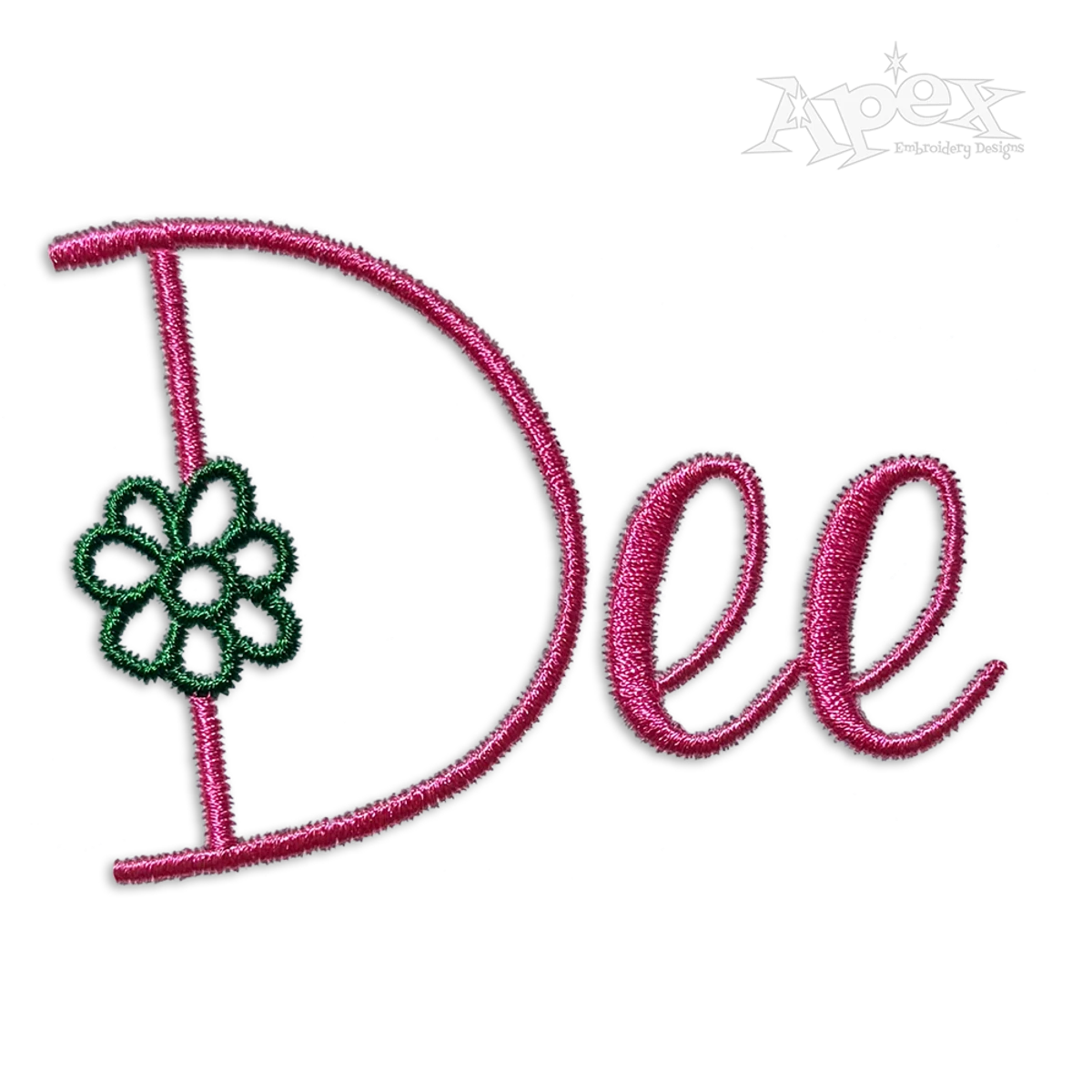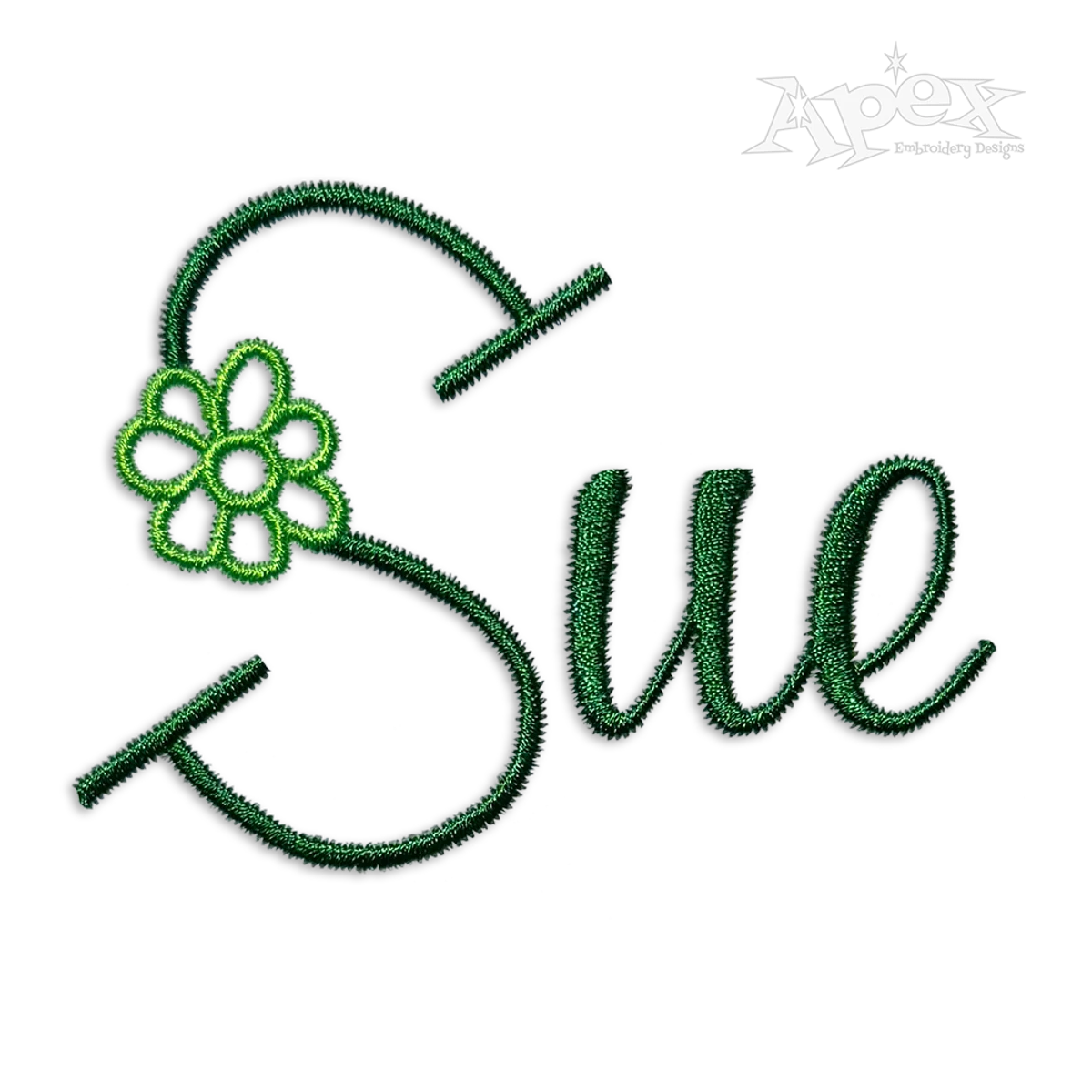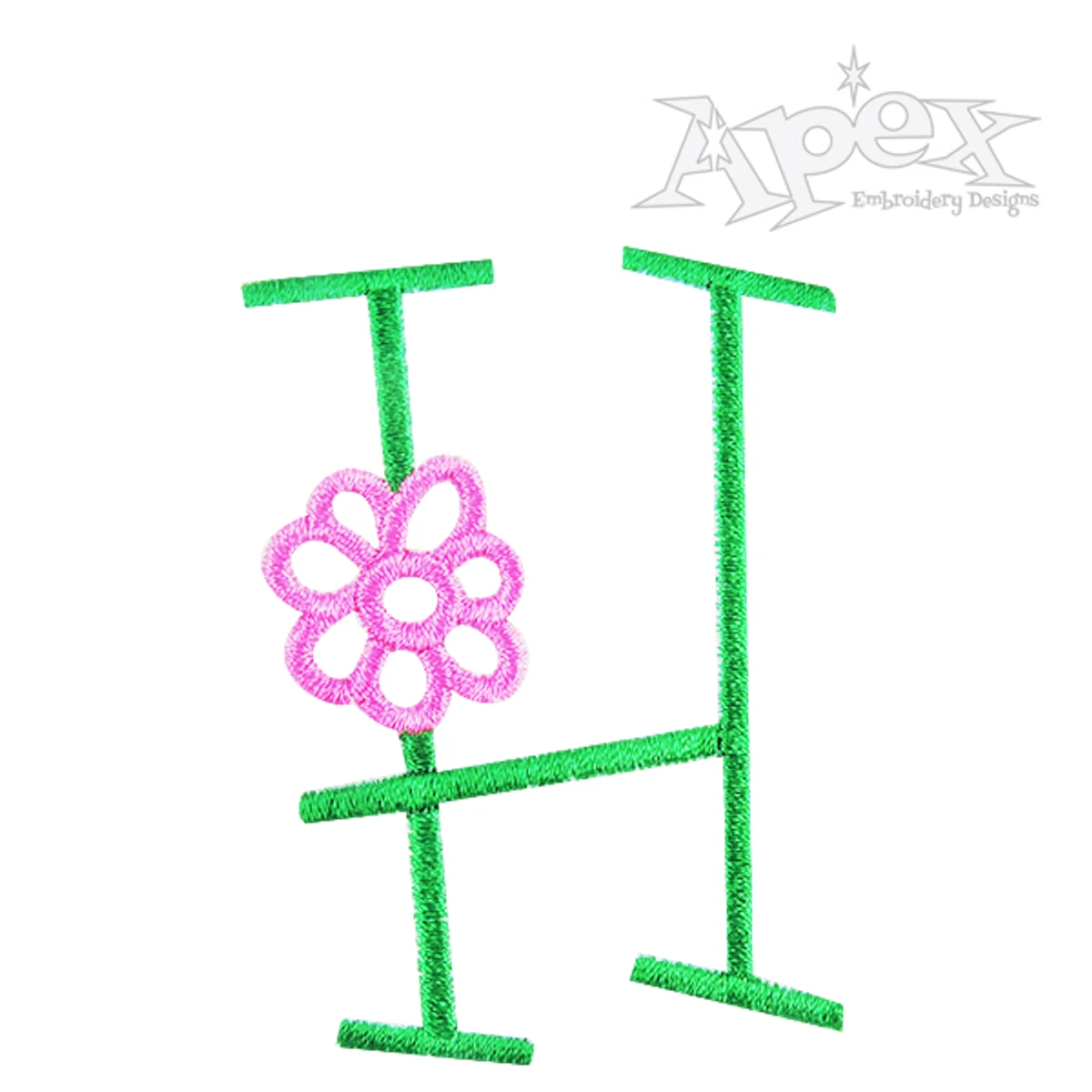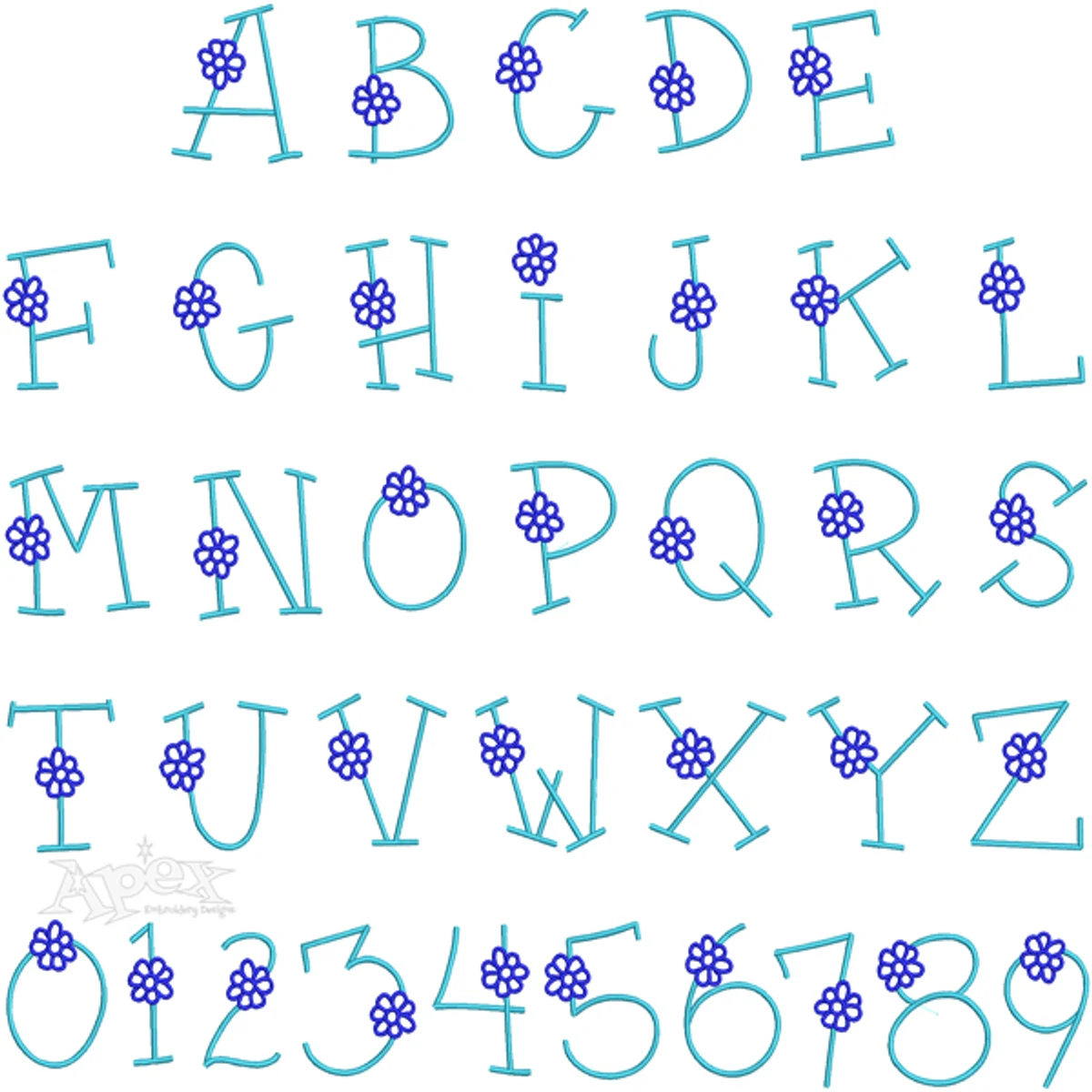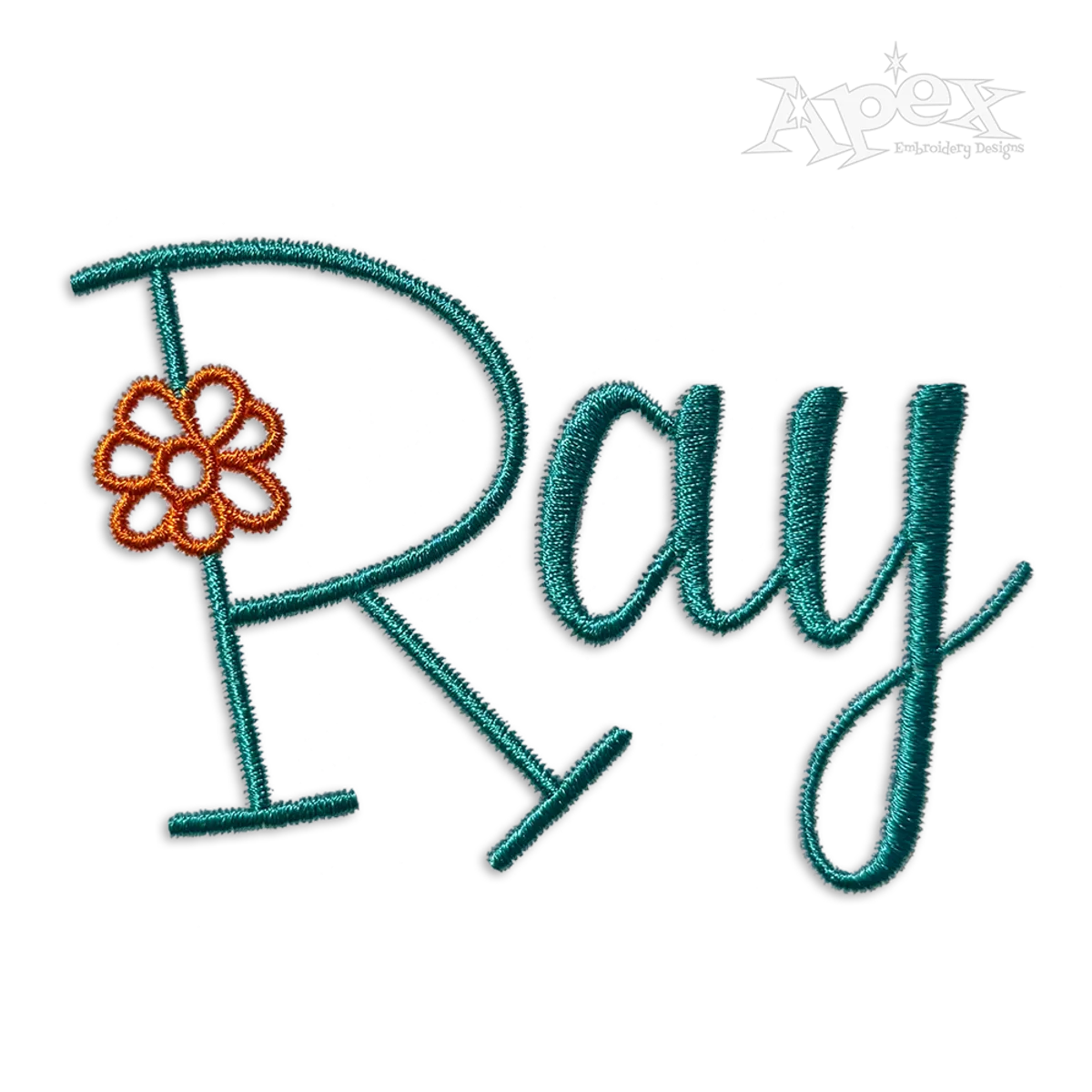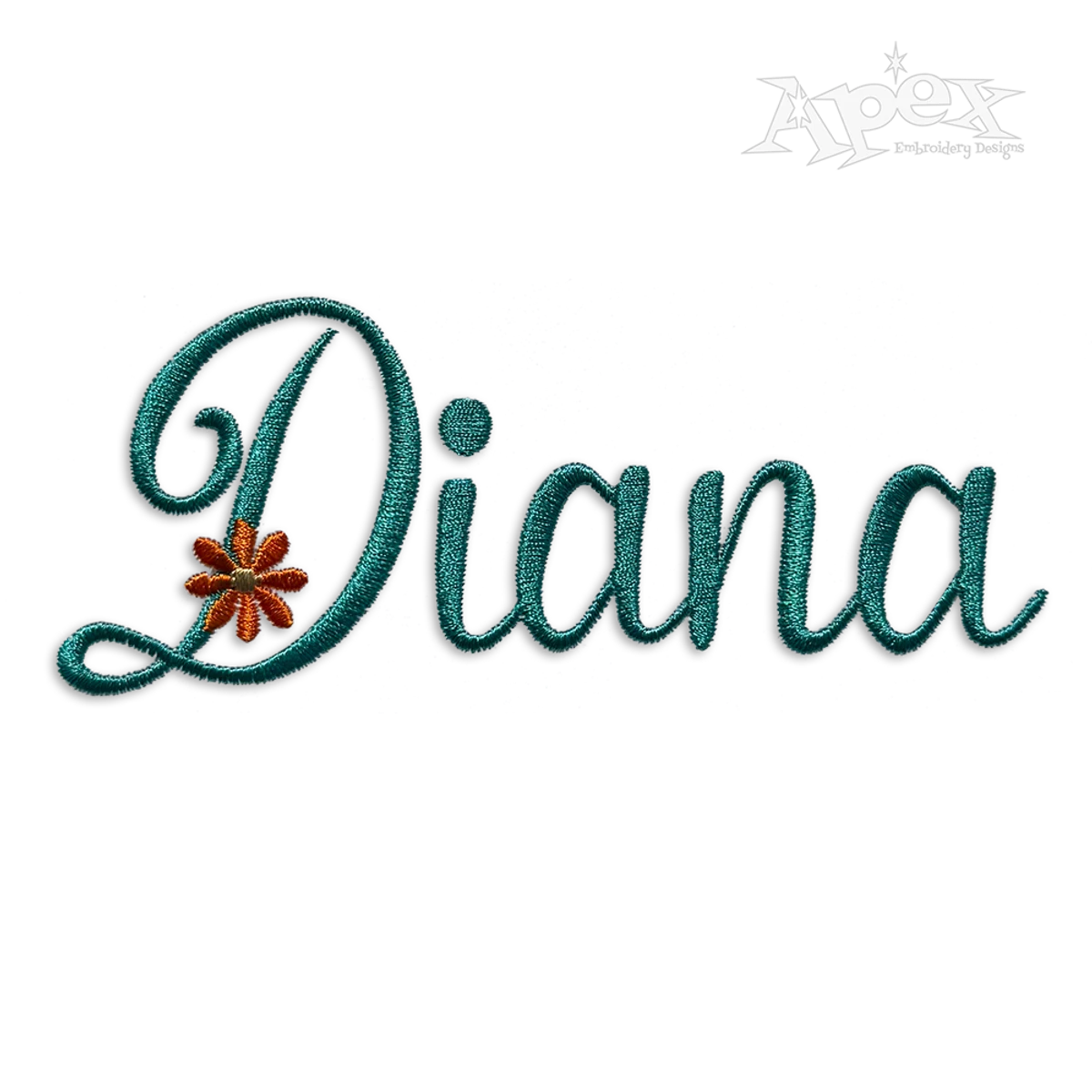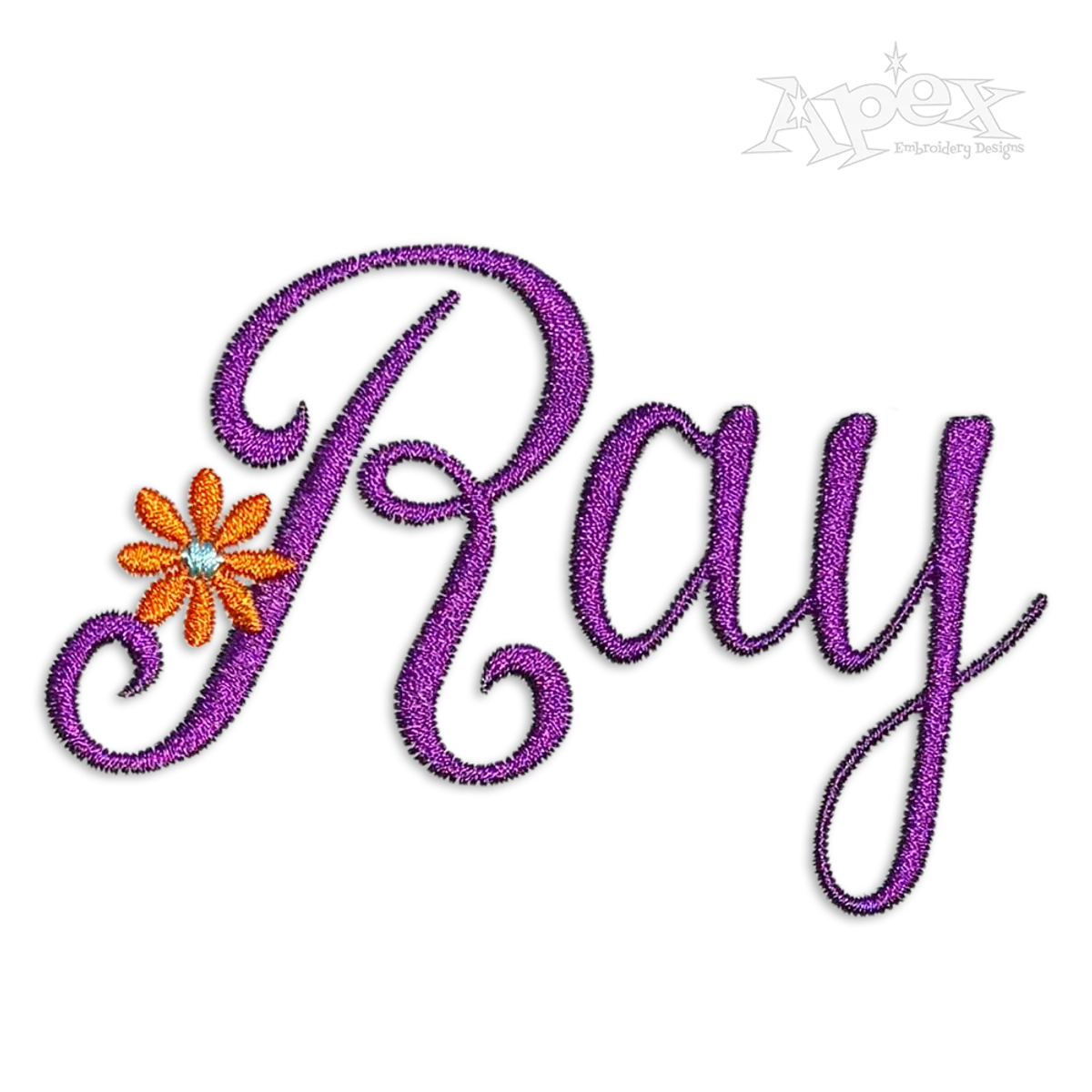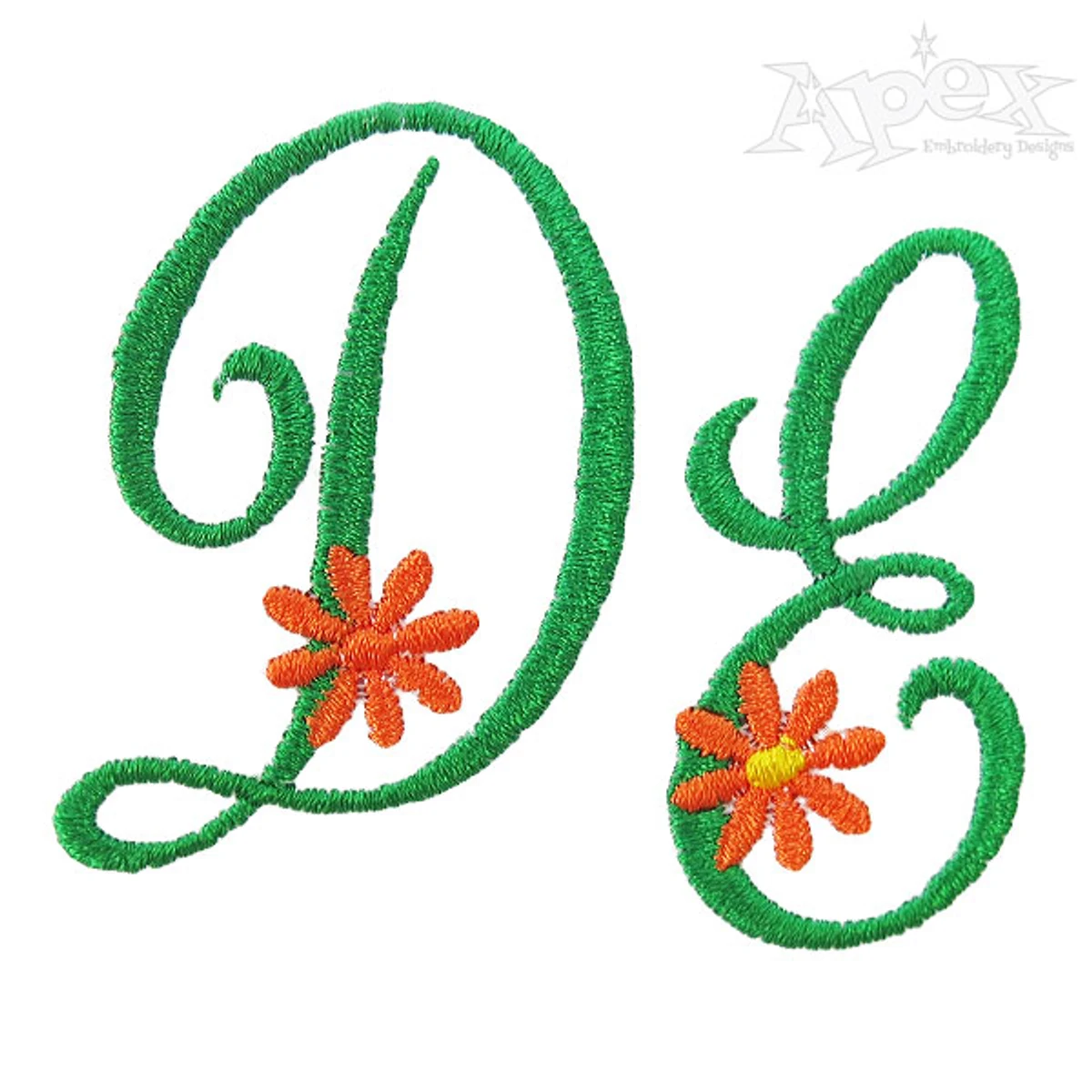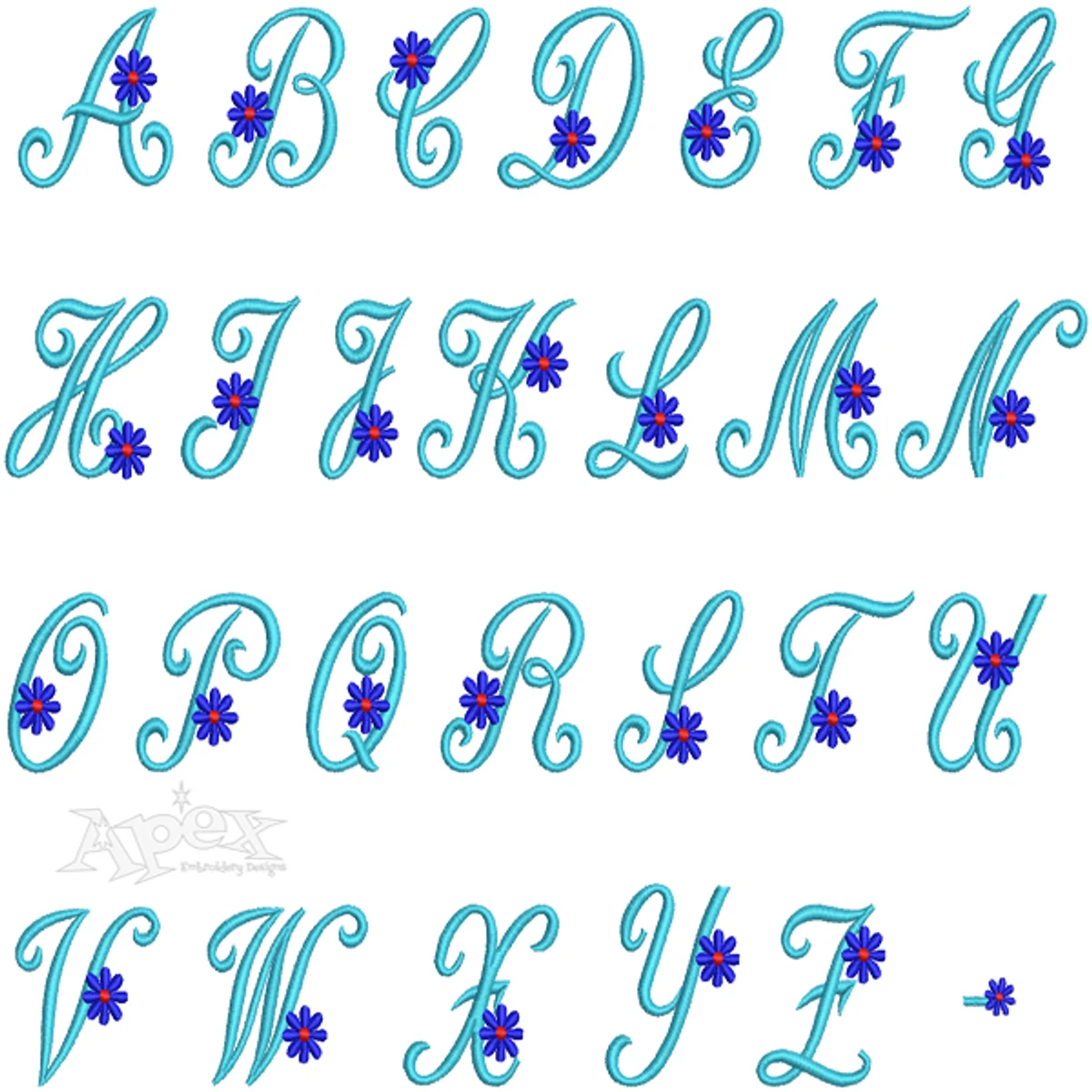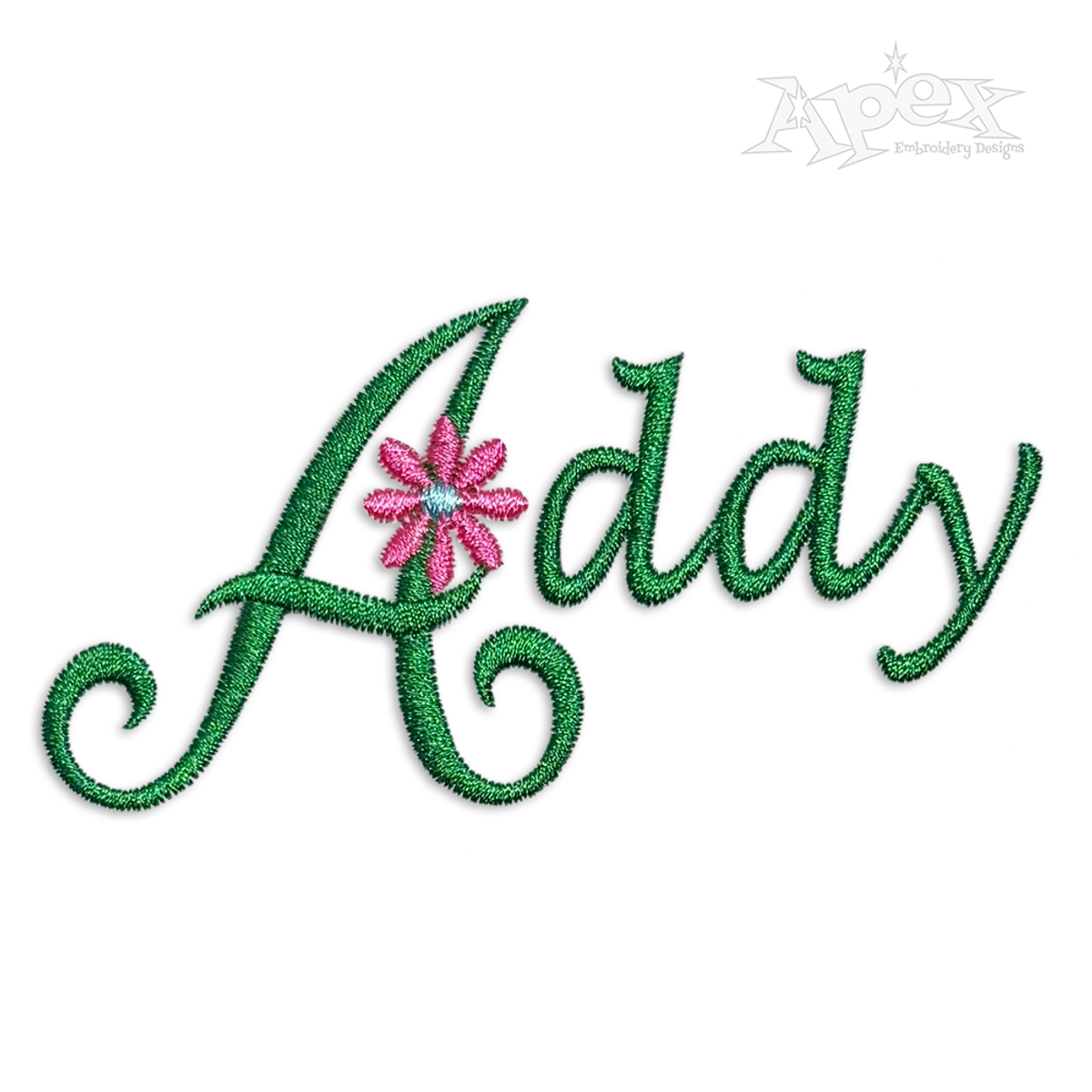
Daisy Flower Embroidery Fonts Bundle
There is an enduring, lighthearted grace in meadow daisies swaying under an early summer sky—a breezy, carefree innocence that inspired every curve of this collection. As digitizers, we sought to capture that natural cheer without losing the crisp, tailored elegance required of true heirloom embroidery. The Daisy Flower Embroidery Fonts Bundle brings together five distinct typographic celebrations of the wildflower: from sculpted, dimensional petals hugging elegant stems to charming polka-dot motifs and fresh, two-color botanical accents. Each letterform invites the sun into your studio, transforming ordinary linens and garments into personalized keepsakes steeped in meadow-fresh charm.
This curated embroidery suite delivers five distinct botanical monogram sets, precisely digitized for flawless machine performance across a versatile range of scale:
- Daisy Flowers: 2.00" uppercase alphabet featuring integrated floral blossoms nestled directly into each satin-stitched letter.
- Daisy with Grass: Includes two proportionate scales—a bolder 2.75" uppercase and numbers set with 2.00" lowercase companions, alongside a delicate 1.50" uppercase set with 1.00" lowercase characters.
- Daisy Spring Flower: 2.60" uppercase alphabet and coordinating numerals adorned with perky, blooming daisy accents.
- Flowers Polka Dots Monogram: 3.50" statement uppercase alphabet blending playful filled dots with whimsical floral overlays.
- Flowers Open (Two-Color): 2.75" uppercase, 2.00" lowercase, and 2.75" numbers engineered with dual-color layering for striking contrast and visual depth.
Project Ideas for Daisy Flower Embroidery Fonts Bundle
The versatility of five distinct botanical styles makes this bundle an essential staple for personalizing spring gatherings, sunny milestones, and bespoke gifts:
- Luxury Table Linens: Embroider the open floral or grass-accented monograms on crisp hemstitched linen cocktail napkins, placemats, and runners for garden teas and bridal brunches.
- Heirloom Nursery Essentials: Stitch sweet baby girl rompers, bloomers, christening bibs, and soft pastel crib blankets with the dainty 1.5-inch daisy letters.
- Bespoke Resort Wear & Accessories: Elevate woven straw sun hats, tiered sundresses, light chambray shirts, and canvas beach totes with the vibrant 3.5-inch polka-dot monograms.
- Botanical Spa & Bath Sets: Create personalized gifting sets by stitching blooming initials onto waffle-weave robes, guest hand towels, and cosmetics pouches.
- Personalized Gardening Aprons & Market Bags: Pair durable linen or heavyweight canvas with sunny floral lettering for thoughtful Mother’s Day and hostess presents.
To showcase the joyful energy and intricate petal detail of each letterform, consider these curated positioning strategies:
- Table Napkins & Tea Towels: Angle the monogram at a 45-degree diagonal, set 1.5 to 2 inches from the bottom right corner, allowing the botanical stems to drape naturally toward the point.
- Children's Wear & Blouses: Position smaller sizes on the left chest (centered roughly 3 inches below the shoulder seam) or delicately centered on Peter Pan collars and smocked yokes.
- Totes & Cosmetic Bags: Center the bold 3.5" polka-dot or two-color styles precisely between the handles, sitting in the upper optical third of the bag panel.
- Pillowcases & Linens: Align the embroidery along the right-hand hem border or centered directly across the turn-back cuff for an elevated bed-linen presentation.
Daisy Flower Embroidery Fonts Bundle Craft & Letterform Details
Digitizing botanical typography demands a delicate balance of physical stitch dynamics and soft, organic artistry. In each of these five typefaces, we painstakingly calibrated stitch directions so that petals reflect thread sheen outward from their golden centers, mirroring how light strikes a natural meadow bloom. The satin columns are engineered with micro-feathered underlay and calculated pull compensation, ensuring columns remain full, straight, and smooth without cinching even lightweight cottons and batistes. In the two-color open designs, transitions are plotted with logical pathing and neat travel stitches to minimize trimming while maintaining pin-sharp registration between petal layers. The result is a vibrant, meadow-inspired alphabet collection that glides through your needle with rhythmic, jam-free ease.